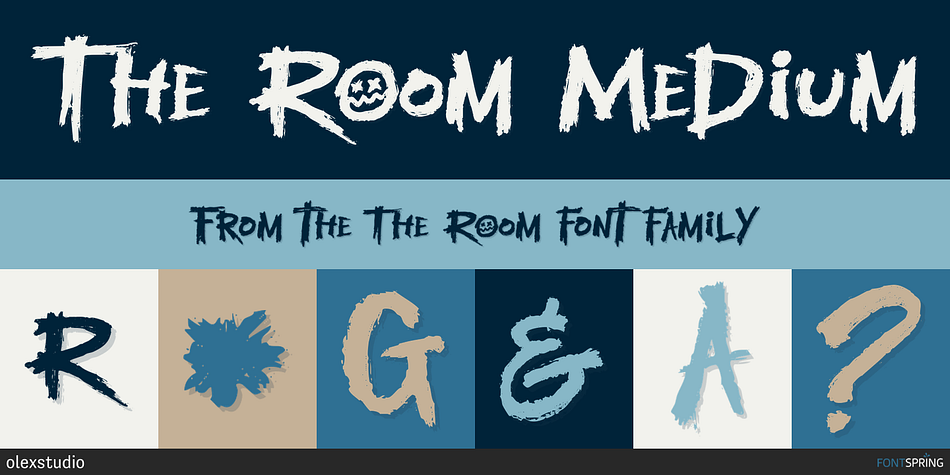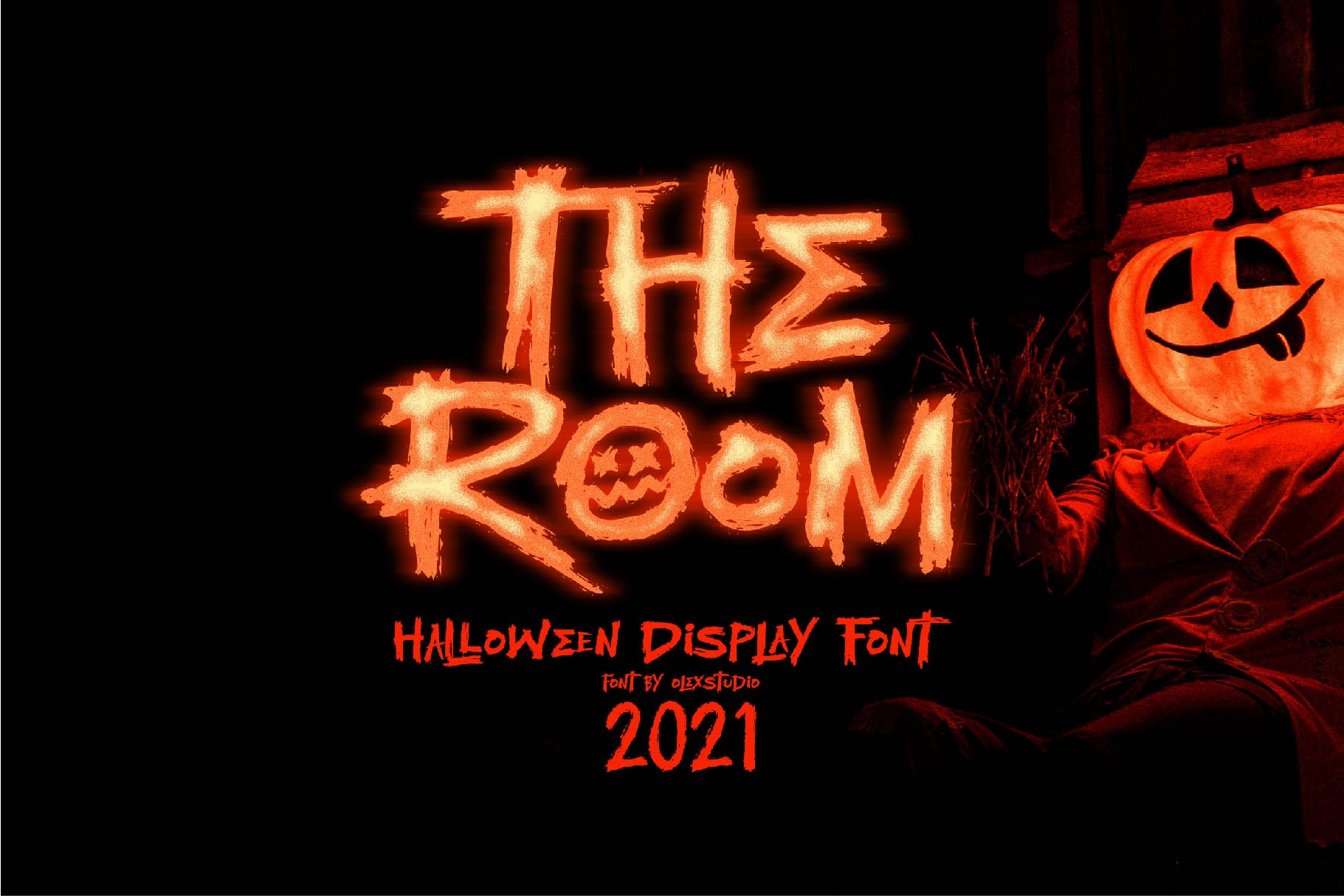
The Room Medium
The Room is a font family published by olexstudio.
THE ROOM - Display Font will look gorgeous on all your designs, invitation, poster design, book design, branding materials, logo’s, t-shirt and all project design other.
THE ROOM - Display Font contains standard characters, all Glyphs is uppercase, numbers, punctuation, ligatures and international glyphs. You will receive OTF, TTF files & WEBFONT.